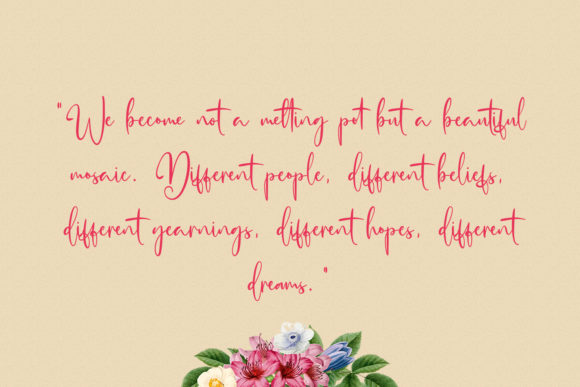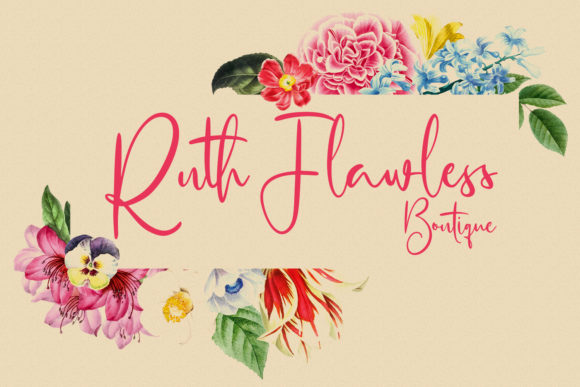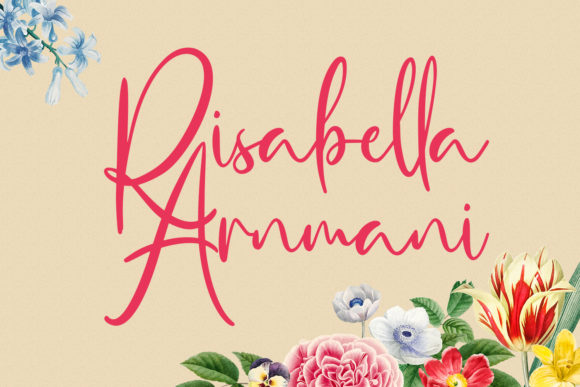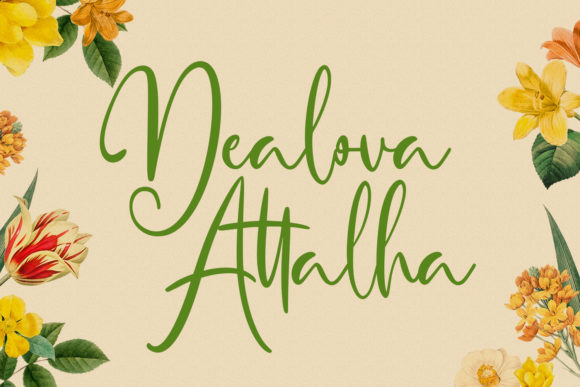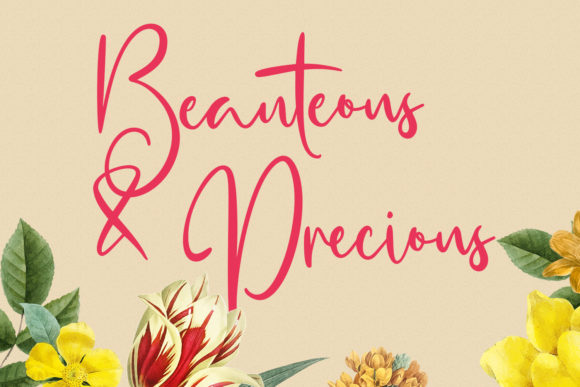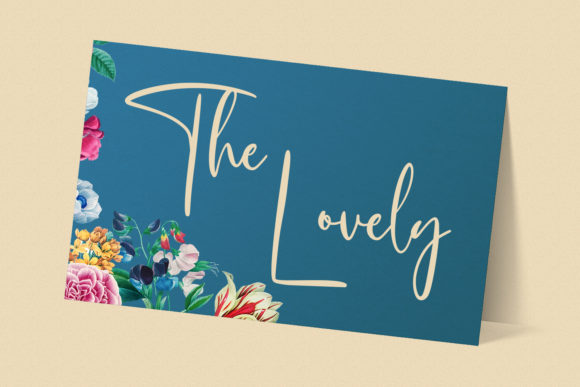
Introduction to Hellostars Script Font
Hellostars Script is a lovely script font featuring charming, playful characters that seem to dance along the baseline.
Add this font to your most creative ideas, and notice how it makes them stand out .